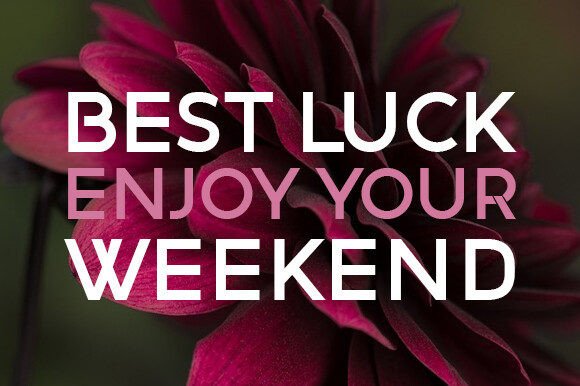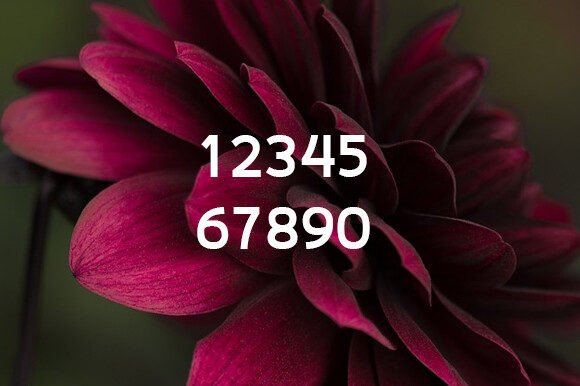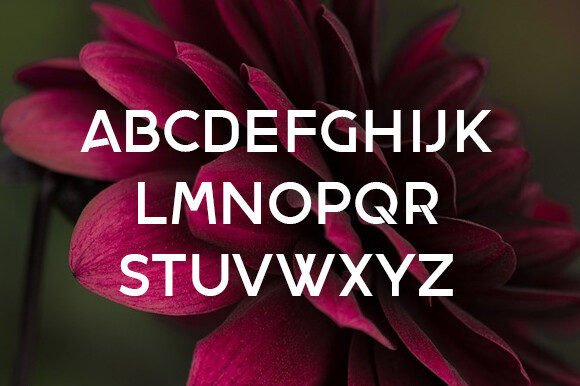
Unlock Your Creativity with Dalia Font
You know that moment when a burst of inspiration hits you, and you can’t wait to bring your idea to life? It’s a rush of creativity that can only be matched by the thrill of seeing your vision take shape. For designers, this feeling is a constant companion, driving us to push the boundaries of what’s possible. And sometimes, all it takes is the right font to set our imagination ablaze.
Enter Dalia Font, a stylish all caps sans serif font that’s designed to elevate any design. Whether you’re working on posters, postcards, or t-shirts, Dalia Font is the perfect companion to help you create something truly eye-catching. With its clean lines and modern aesthetic, this font is a valuable addition to any designer’s toolkit, offering endless possibilities for creative expression.
Dalia Font Key Features
- Font Family: Dalia Font is a sans-serif font family designed for digital use.
- Unique Characteristics: Dalia Font features a clean and modern design with a friendly feel, making it suitable for various digital applications, including web design, mobile apps, and digital publishing.
- Language Support: Supports a wide range of languages, including Latin, Cyrillic, and Greek scripts.
Dalia Font Review
I recently had the chance to work with the Dalia Font, and I have to say it’s been a mixed bag for me. Here’s what I’ve learned.
- The Dalia Font has a lovely, elegant feel to it. It’s perfect for creating a sophisticated and refined look.
- The font is highly versatile and works well for both body text and headings.
- The font’s high x-height makes it great for readability, especially at smaller sizes.
- The font family includes a wide range of weights and styles, giving designers a lot of creative freedom.
- The Dalia Font can sometimes feel a bit too ornate, making it difficult to read at very small sizes.
- The font’s design can be a bit too inconsistent across different weights and styles, making it harder to achieve a cohesive look.
Overall, I think the Dalia Font is a solid choice for designers looking for a sophisticated and elegant font. While it may have some limitations, its versatility and high readability make it a great option for a wide range of projects. However, it’s worth noting that it may not be the best choice for very small text or for projects where consistency is key.
The Dalia Font is versatile and can be used in a variety of contexts, including:
- Food and restaurant branding.
- Travel and adventure marketing materials.